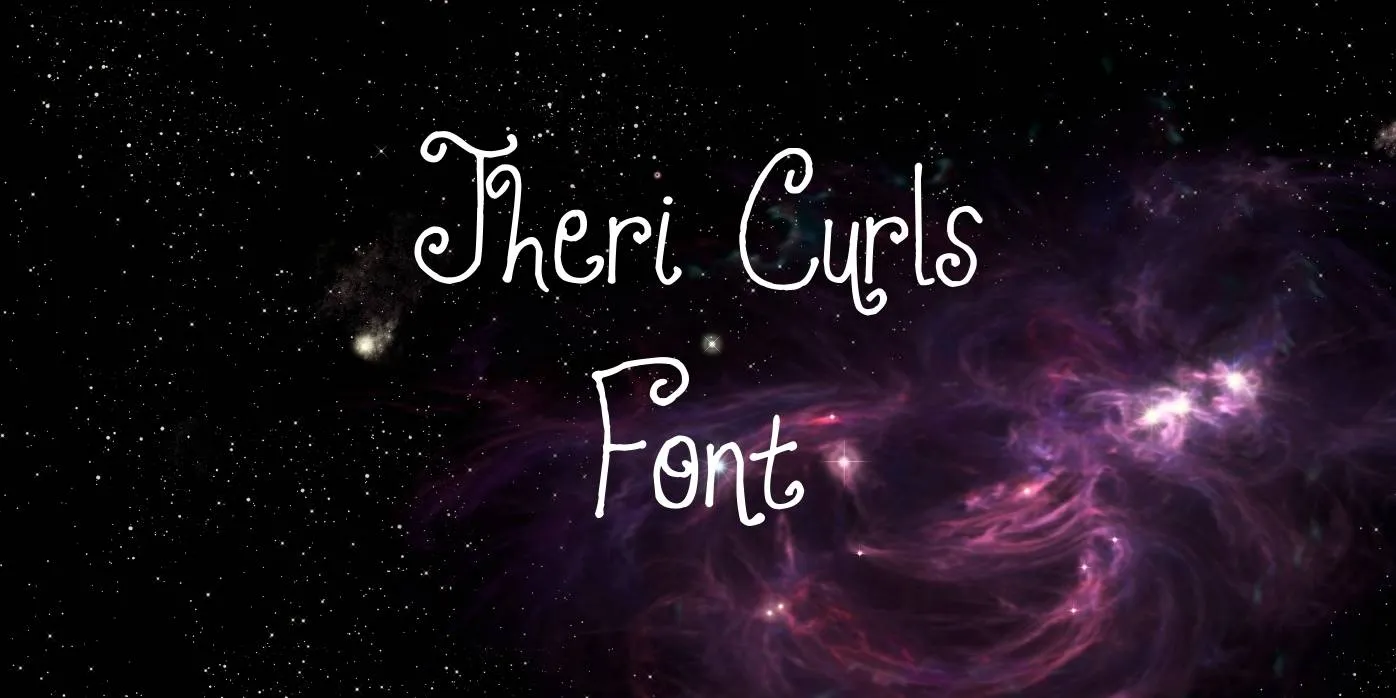
Jheri Curls Font
Here we discuss details about the Jheri Curls Font. It is a curly design that is inspired by the 1980s hairstyle of this font. This font is designed by Kimberly Geswein. It consists of 653 glyphs which makes it looks different and unique.